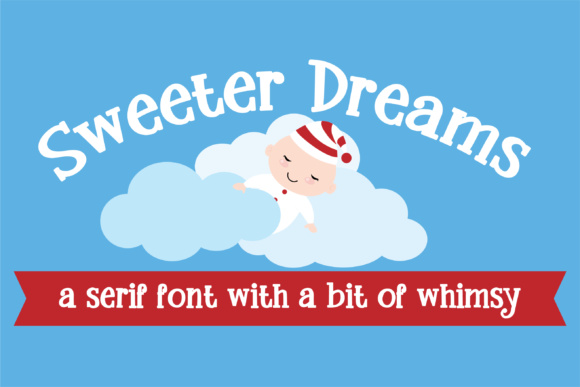
Step into a world of whimsical charm and playful sophistication with Sweeter Dreams Font, the delightful serif creation from Illustration Ink! This enchanting font family, brimming with personality and character, will transform your designs into captivating works of art.
Indulge in the whimsical charm of this font, meticulously crafted to bring a touch of playfulness and joy to your projects. Its graceful curves and delicate flourishes dance across the page, creating a visual symphony that captures the imagination. Whether crafting logos, branding materials, or enchanting invitations, Sweeter Dreams Font will add a touch of magic to every letter and word.
With its irresistible charm and versatility, Sweeter Dreams Font is the perfect companion for those seeking to add a dash of whimsy and uniqueness to their creative endeavors. Imagine the possibilities as you weave this font into your designs, creating captivating headlines, enchanting marketing materials, or heartfelt personal messages. The possibilities are endless, bounded only by your imagination.
Embrace the allure of Sweeter Dreams Font and embark on a design journey like no other. Let your creativity soar as you witness the transformation of your projects into captivating masterpieces. Be it a personal touch to your blog, a captivating social media post, or an unforgettable business presentation, this font family will turn heads and leave a lasting impression.